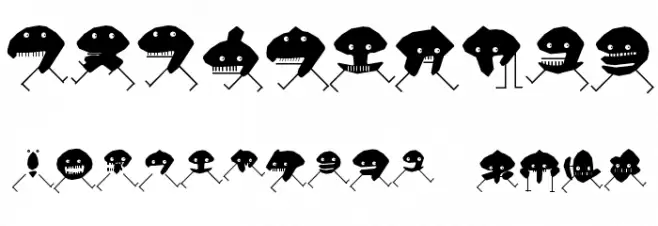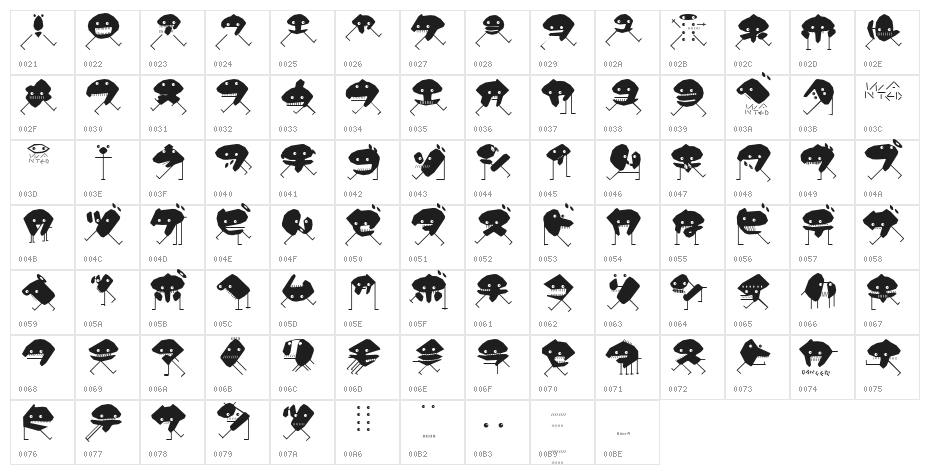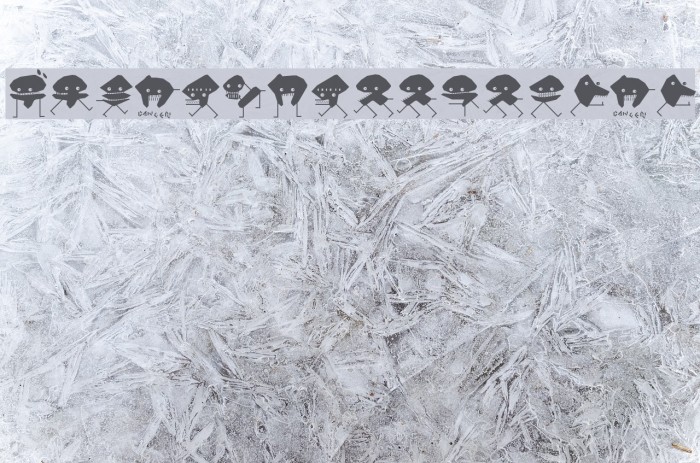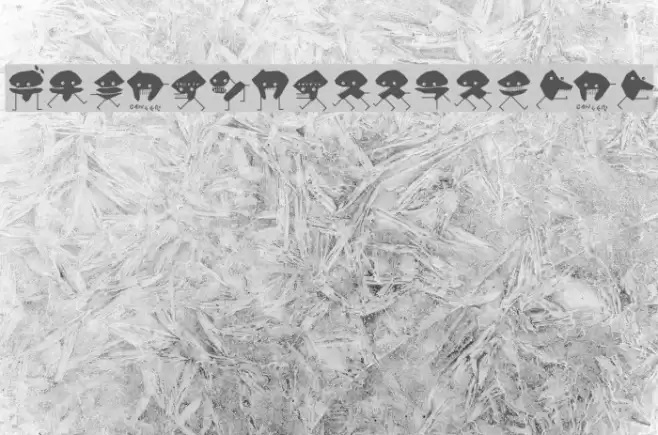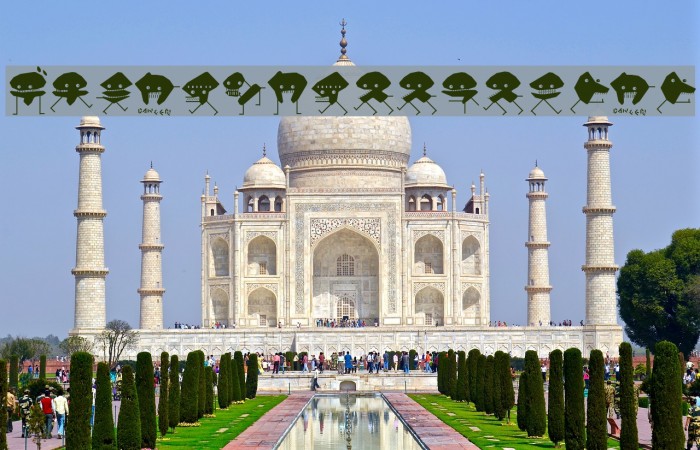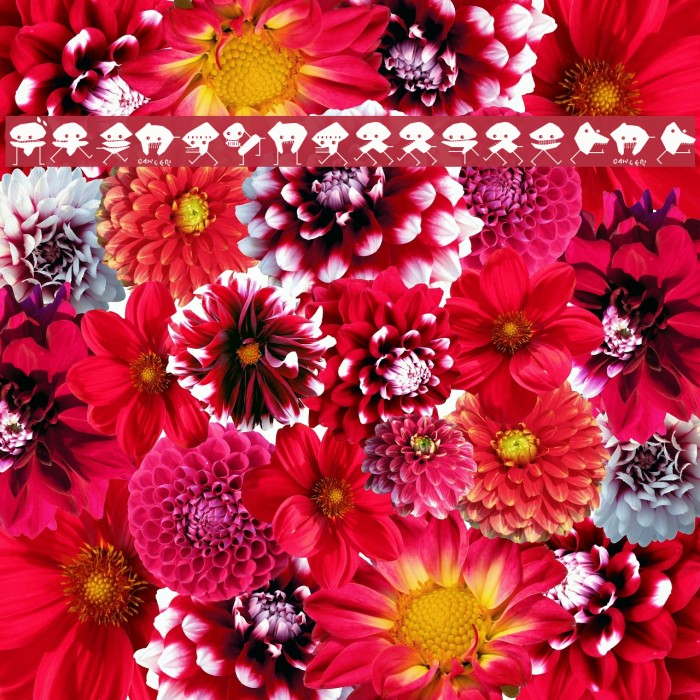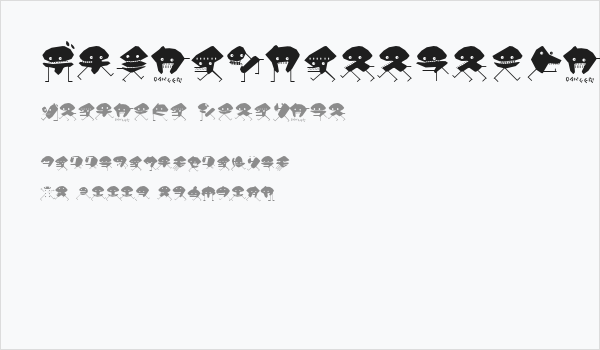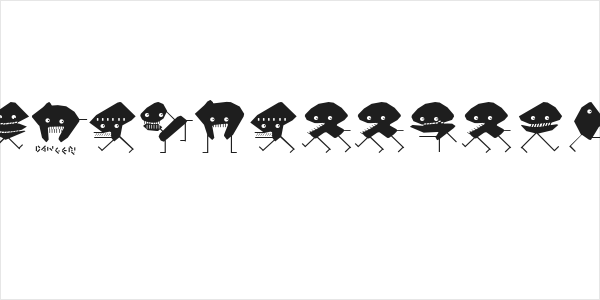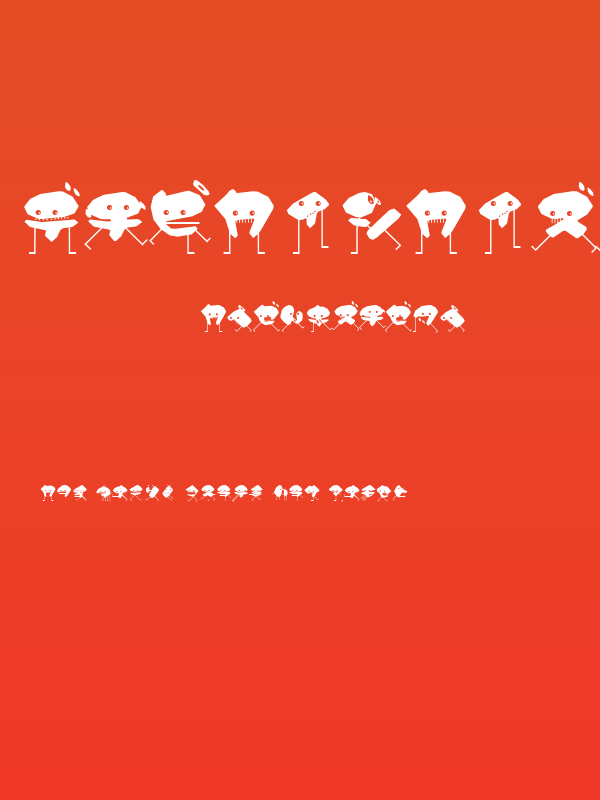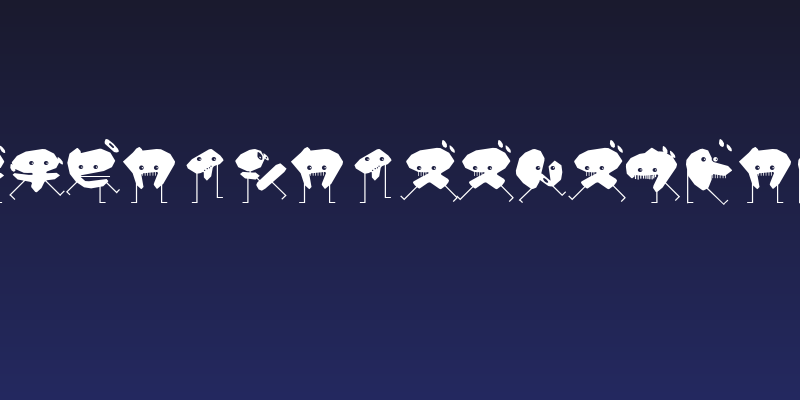
WantedTerrorists Font
WantedTerrorists Description
This is not a valid font. The image depicts a series of abstract, character-like illustrations that resemble cartoonish figures rather than traditional typographic characters. Each figure has a unique design, with exaggerated features and whimsical expressions, making them unsuitable for standard text representation.
| Overall Style | Whimsical, Cartoonish |
| Use Case | Illustrations, Graphic design |
| Proposed Projects | These illustrations could be used for creative projects such as animations, comics, or graphic design elements. |